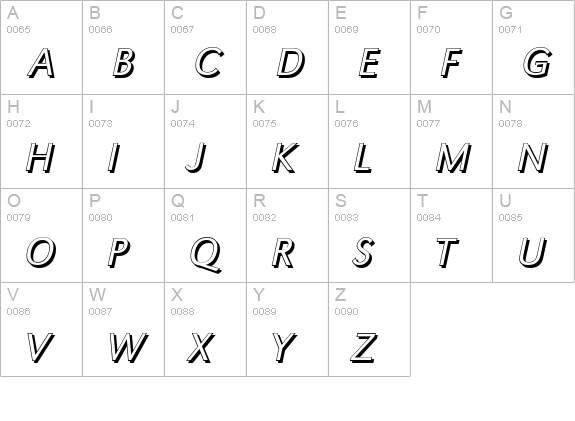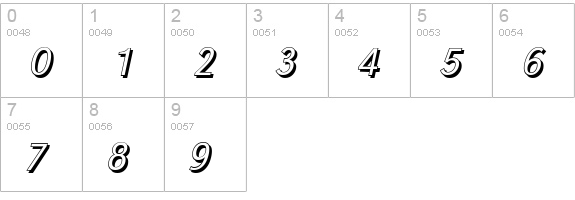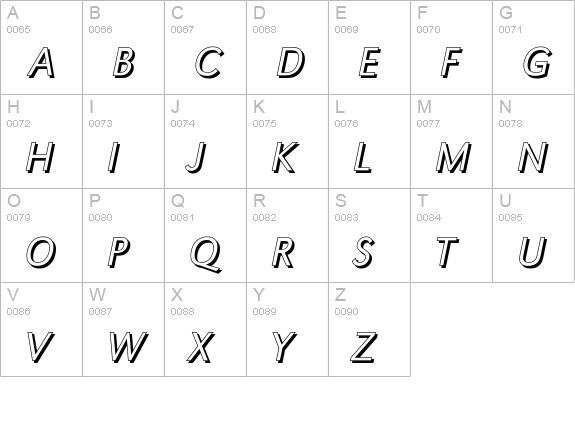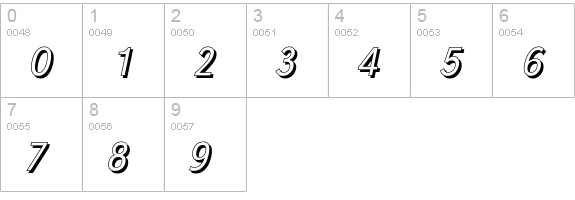
GroteskSh-Light-Italic is a refined, elegant, italic variant in the GroteskSh typeface family \xE2\x80\x94 well suited to elegant body text, refined sub-headings, and luxury branding.
GroteskSh-Light-Italic font is a sleek and modern typeface that exudes elegance and sophistication. Its light weight and italic style make it perfect for adding a touch of sophistication to any design project. The clean lines and subtle curves of this font give it a contemporary and stylish appearance, making it ideal for a wide range of applications. What makes GroteskSh-Light-Italic font even more appealing is that it is available for free download at FontsMarket.com. This means that you can easily access this high-quality font without having to spend a penny. Whether you're working on a personal project or a professional design, GroteskSh-Light-Italic font is a versatile and stylish choice that will elevate your work to the next level. Download it today and add a touch of elegance to your designs!